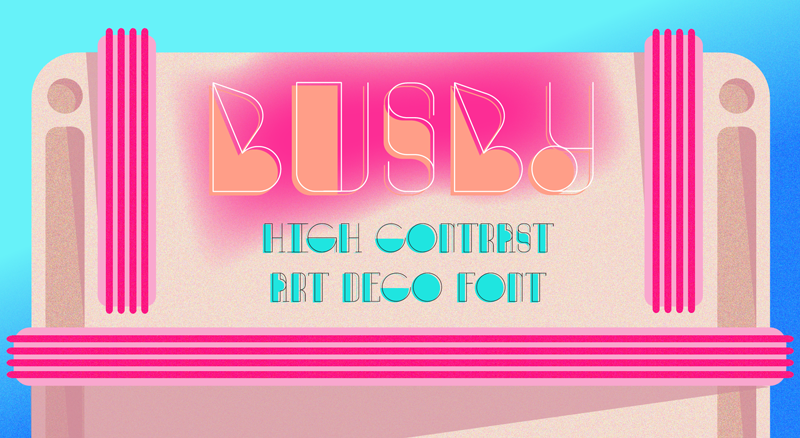
Introducing Busby, an all-new Art Deco Font! Busby is here just in time for the new Twenties: the 2020s. Inspired by the brass light fixtures and bold clean lines of the Art Deco era, Busby is a font available in 4 weights: Regular, Light, Condensed, and Condensed Light. This is a download for Busby Regular. For the other 3 variations of Busby: Busby Condensed, Busby Light, and Busby Condensed Light, please check out the font bundle on our shop: https://www.etsy.com/listing/1074683627/art-deco-font-bundle-otf-busby-a-high Busby Regular is offered free for personal use only. For commercial uses, please purchase the font bundle listed above on our etsy page. Busby is great for a variety of applications- from posters and art with a South Beach Miami feeling to super trendy Millennial appealing fashion products and graphic design with an edge of old school glamour. Thank you and I hope you enjoy using Busby! |